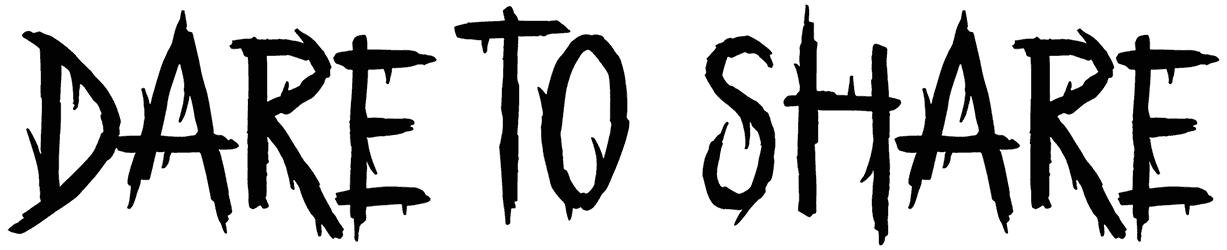
Toxia is a well-designed horror font that immediately impresses your audience. This fancy font has a dark theme and seems memorable. The horror font may be helpful in several situations, such as posters, flyers, and mess book covers. This font’s letters seem a bit eroded and have sharp edges, creating a horrifying feeling. So download this scary font to give the viewers a new experience.
Toxia by Michael G Adkins
Want something poisonous to hide in your letterforms. A bit dangerous and dripping wet as it clambers up out of the mire?? Try some Toxia. It’s a brewed blend guaranteed to tighten your throat and leave you gasping no more.